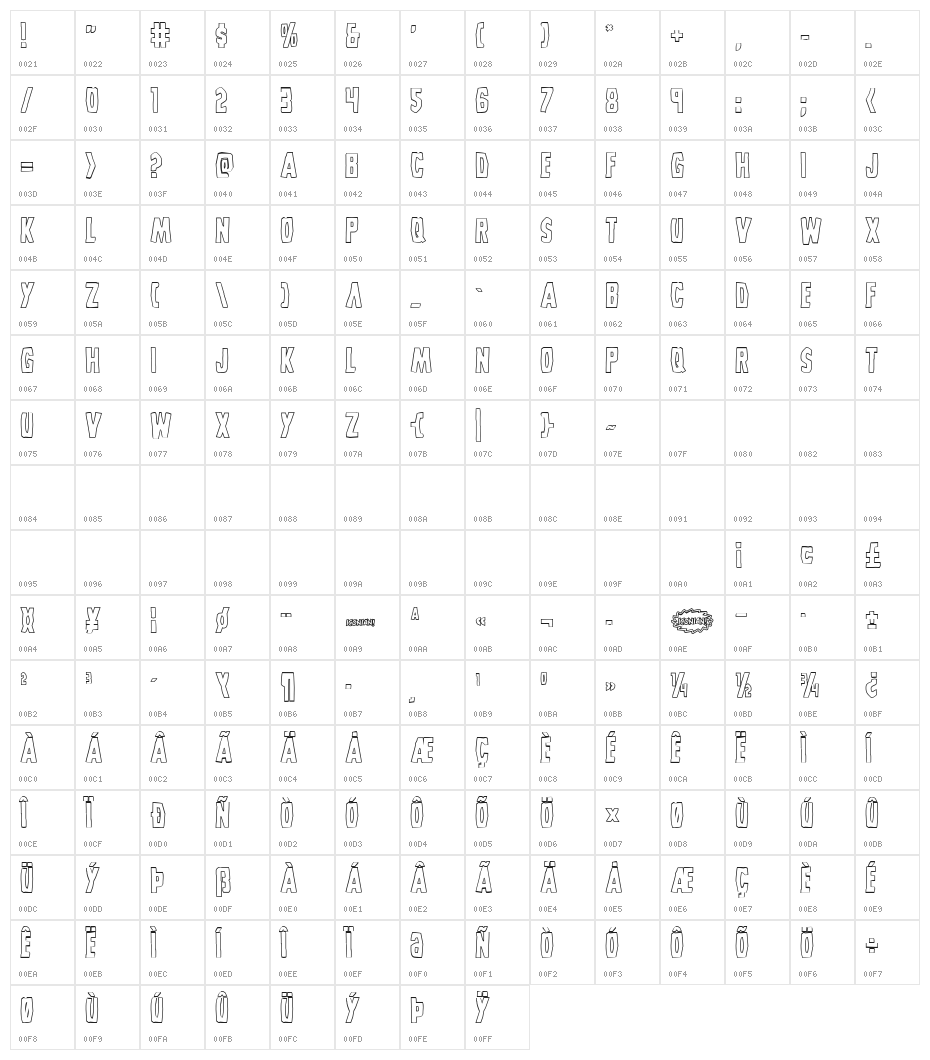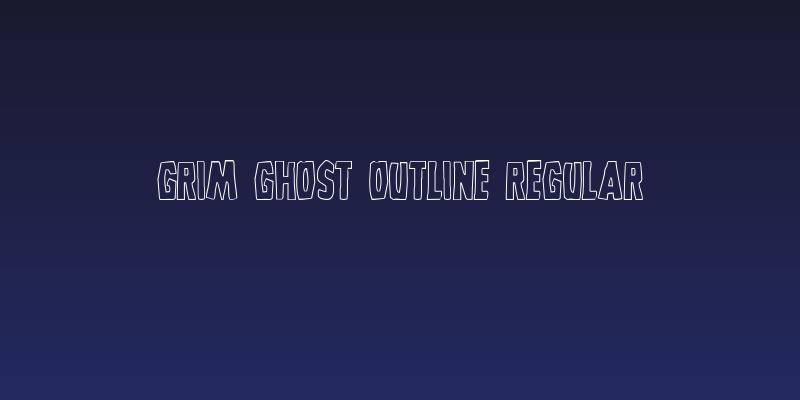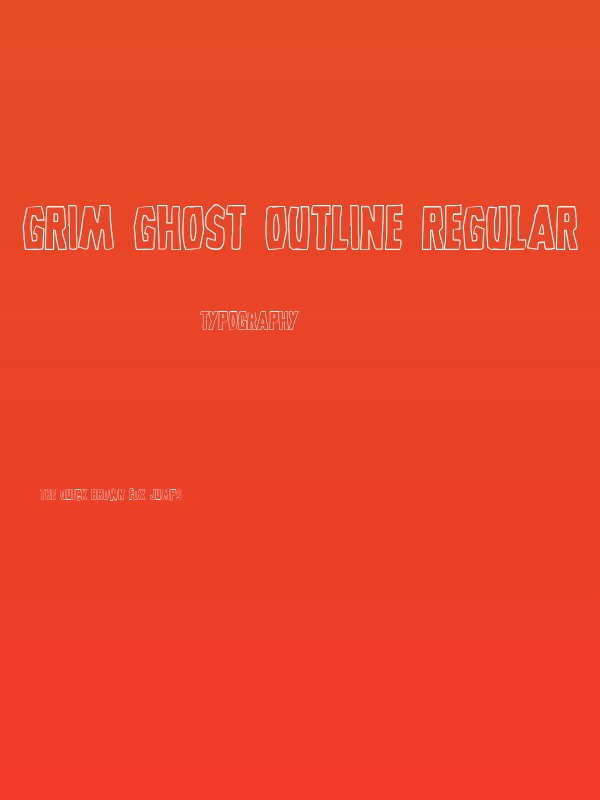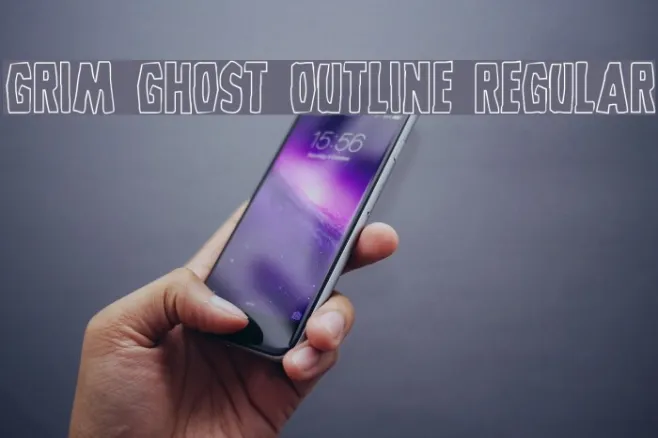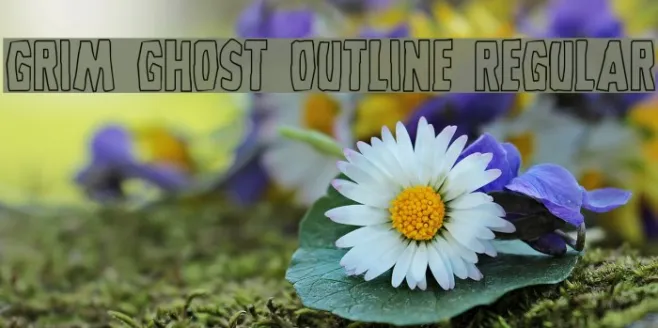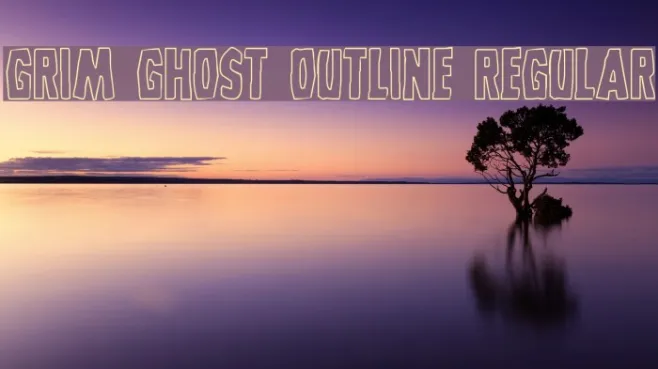
Grim Ghost Outline Regular Font
Grim Ghost Outline Regular Description
This font features an outline style with a playful and slightly irregular shape, giving it a ghostly, whimsical appearance. The characters are bold and have a hand-drawn quality, with uneven edges that add to its quirky charm. The uppercase and lowercase letters maintain a consistent height, while the numbers and special characters are designed to match the overall style. This font's unique outline design makes it stand out, perfect for creative projects that require a fun and eye-catching typeface.
| Proposed Projects | Ideal for Halloween-themed designs, children's book covers, posters, and creative branding projects. |